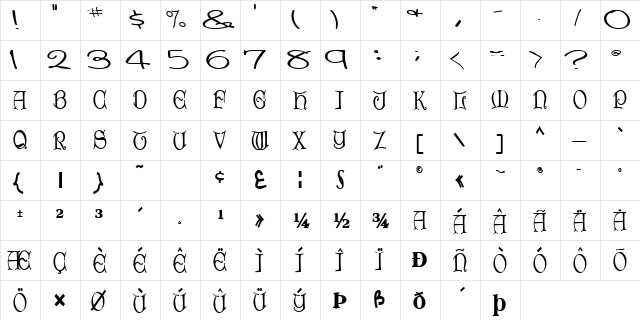
DroPcapperType101 Bold Font Preview
DroPcapperType101 Bold
Design Context for DroPcapperType101 Typeface
DroPcapperType101 is a composed and adaptable typeface that performs quietly and consistently across a wide range of design contexts. Its bold stroke weight gives it real presence on the page.